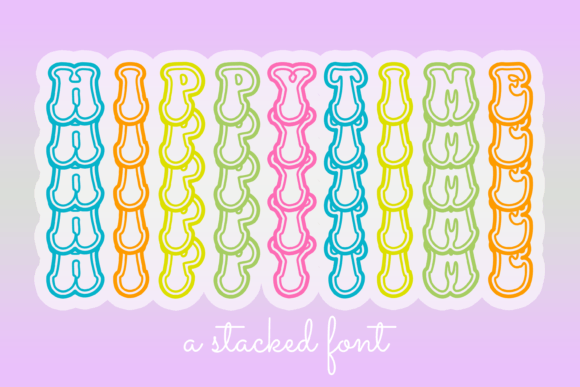
Journey through time with Hippy Time Font, a display font that captures the free-spirited essence of the 1960s. Designed by WADLEN, this groovy font exudes a sense of peace, love, and psychedelic wonder. Its unique characters, reminiscent of iconic band posters and flower power graphics, will add a touch of retro charm to your creative projects.
Indulge in the nostalgia of the swinging sixties with Hippy Time Font. Let your imagination soar as you craft custom designs, DIY projects, and any creation that calls for a dash of groovy flair. From album covers to social media graphics, T-shirt designs to handmade cards, this font will infuse your work with a delightful dose of retro vibes.
Embrace the peace and love ethos of the hippie counterculture. Create posters that advocate for unity, design T-shirts that spread positive messages, or craft invitations that invite friends to a groovy gathering. Hippy Time Font will transform your creations into expressions of harmony, love, and good vibes.
Unlock your inner flower power with Hippy Time Font. Let its vibrant energy infuse your designs with a sense of joy, freedom, and creativity. Dive into the psychedelic wonderland of the 1960s and let your imagination run wild. Whether you're a seasoned designer or just starting your creative journey, Hippy Time Font is the perfect companion for projects that demand a touch of groovy charm.